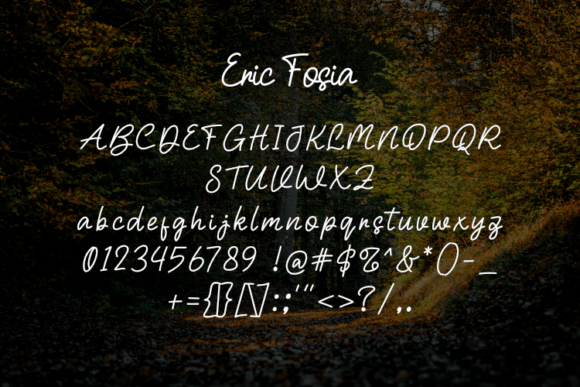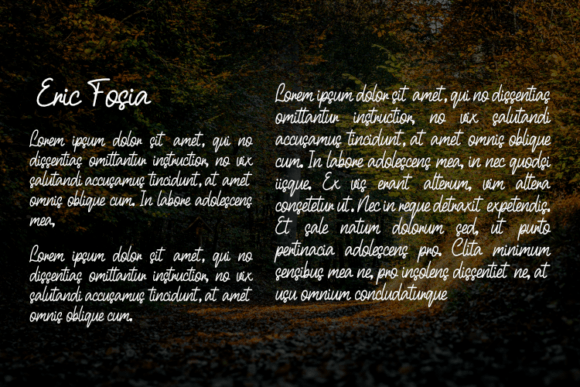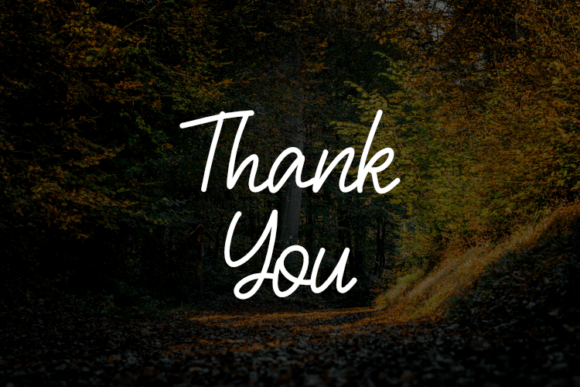
Introducing Eric Fosia: The Ultimate Font for Visually Captivating Designs
In the world of design, typography plays a crucial role in creating visually appealing and effective designs. For crafters, designers, and businesses looking to make a statement on apparel and merchandise, the right font can make all the difference. This is where Eric Fosia comes in – a game-changing font designed to elevate your design experience across various creative projects. In this article, we’ll dive into the features, benefits, and applications of Eric Fosia, the ultimate font for crafting stunning designs on t-shirts, merchandise, and more.
What is Eric Fosia Font?
Eric Fosia is a versatile and modern font designed to cater to the needs of designers, crafters, and businesses. Its unique style and adaptability make it an ideal choice for creating visually captivating designs on apparel, such as t-shirts, hoodies, and other merchandise. With Eric Fosia, you can add a professional touch to your designs, making them stand out in a crowded market.
Key Features of Eric Fosia Font
- Versatility: Eric Fosia is designed to be versatile, allowing seamless adoption in any project or software platform. Whether you’re working on a t-shirt design, a business card, or a billboard, Eric Fosia adapts effortlessly.
- Effortless Adaptability: Eric Fosia’s design allows it to be used across all creative spectrums, from digital designs to print materials, making it a valuable asset for designers and crafters.
Benefits of Using Eric Fosia Font
So, why choose Eric Fosia for your design needs? Here are some benefits that make it an attractive option:
- Time-Saving: With Eric Fosia, you can save time and effort in selecting and pairing fonts for your designs. Its versatility and adaptability make it a one-stop solution for various projects.
- Professional Look: Eric Fosia’s modern design ensures that your creations look professional and polished, helping you establish a strong brand identity.
- Wide Range of Applications: From apparel and merchandise to digital designs and print materials, Eric Fosia is suitable for a wide range of applications, making it a valuable addition to your design toolkit.
Applications of Eric Fosia Font
Eric Fosia’s versatility makes it an excellent choice for various design projects, including:
- Apparel Design: Create stunning designs on t-shirts, hoodies, and other clothing items using Eric Fosia.
- Merchandise Design: Use Eric Fosia to design visually appealing merchandise, such as mugs, phone cases, and tote bags.
- Digital Design: Eric Fosia is perfect for digital designs, including social media graphics, blog posts, and website headers.
- Print Materials: Use Eric Fosia for designing print materials, such as business cards, brochures, and posters.
In conclusion, Eric Fosia is a game-changing font that offers versatility, adaptability, and a professional look to your designs. With its wide range of applications and compatibility with various software platforms, Eric Fosia is an excellent addition to any designer’s or crafter’s toolkit. Whether you’re looking to create stunning designs on apparel, merchandise, or digital materials, Eric Fosia is the ultimate font for visually captivating designs.